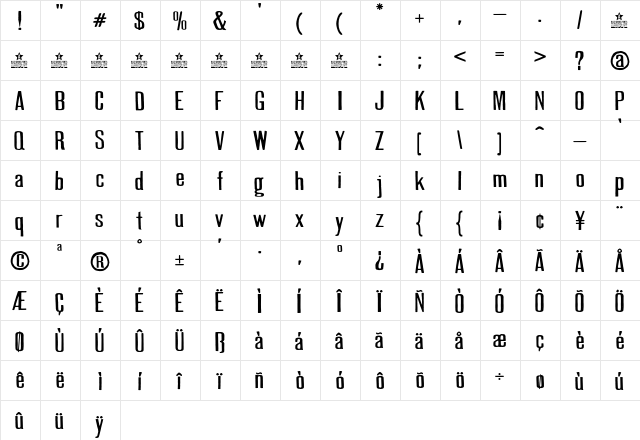
GOOD NEWS PERSONAL USE Regular
Design Context for GOOD NEWS PERSONAL USE Typeface
GOOD NEWS PERSONAL USE is a composed and adaptable typeface that performs quietly and consistently across a wide range of design contexts.
Pro Tip: Pair GOOD NEWS PERSONAL USE with a font of contrasting weight or personality to build a more expressive typographic hierarchy.